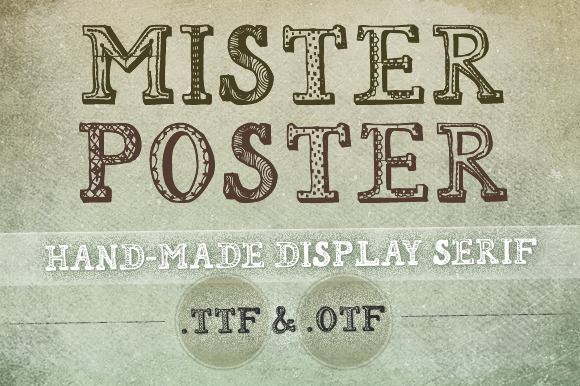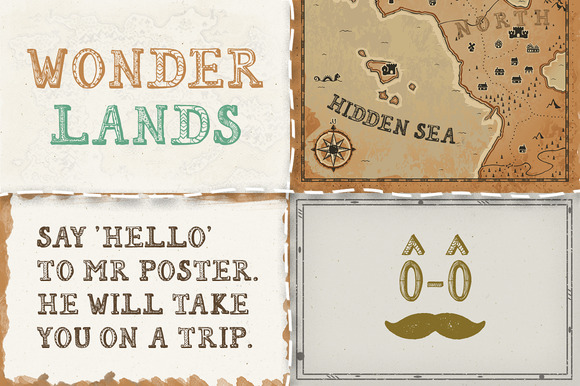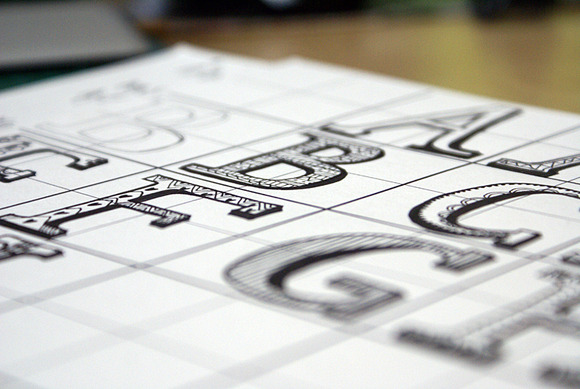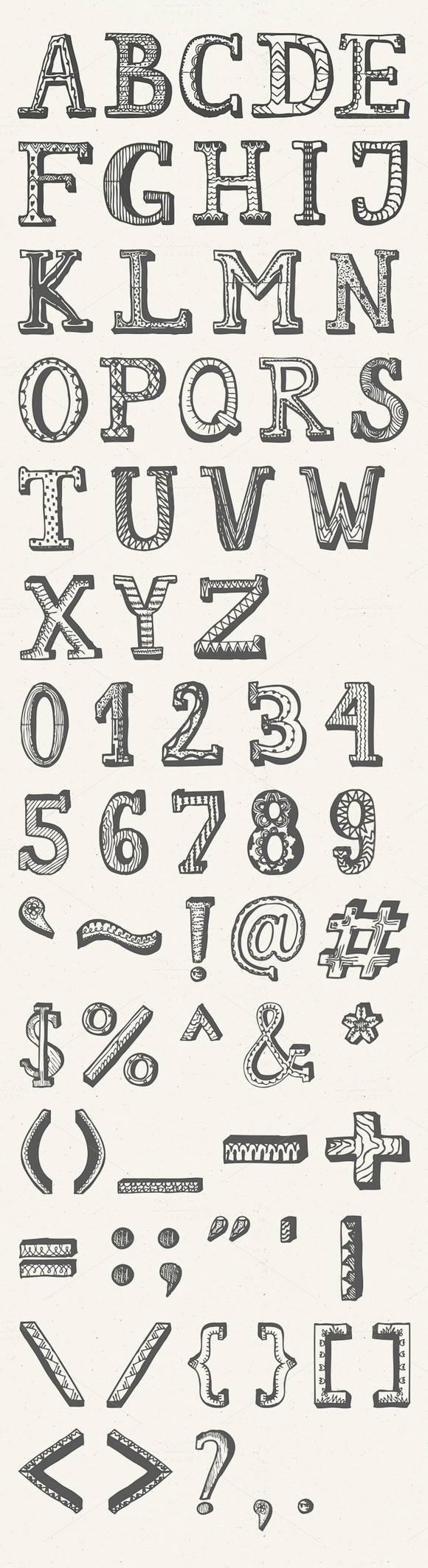
Mr Poster Font
CM – Mr Poster Font
Say ‘Hello’ to Mr Poster – hand-made display serif. 68 glyphs in total (for the full list of glyphs see attached images).